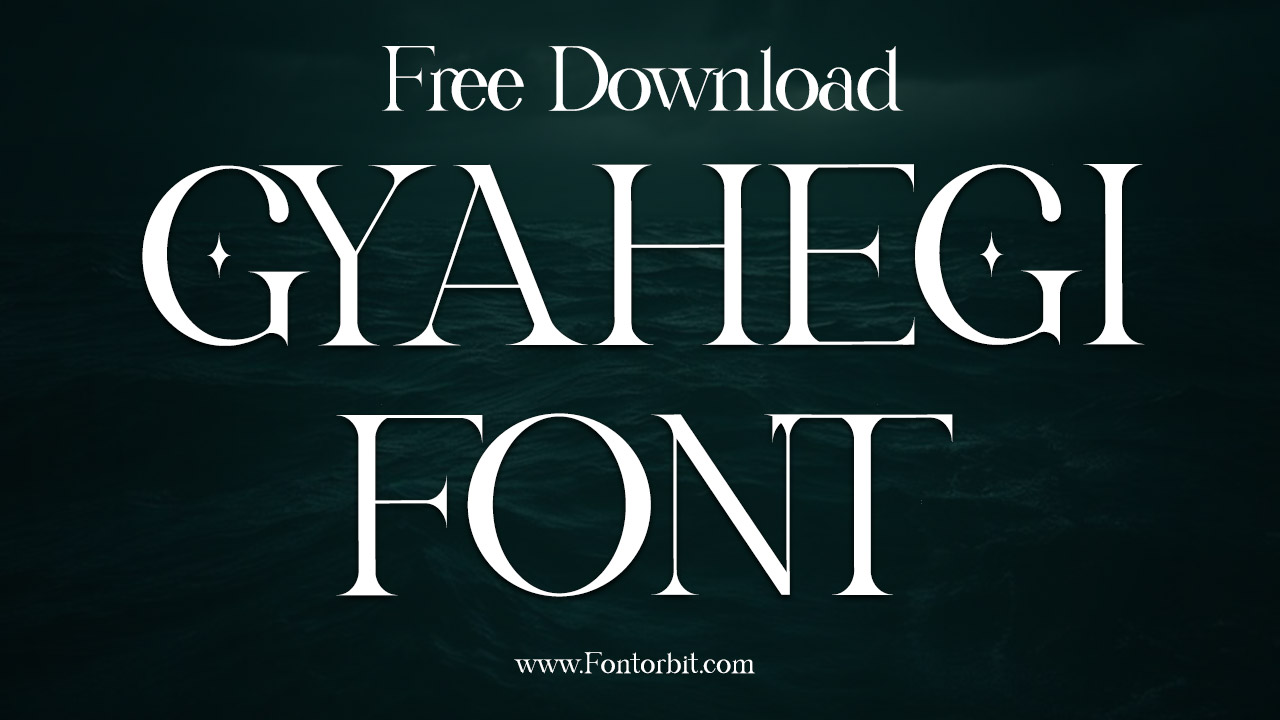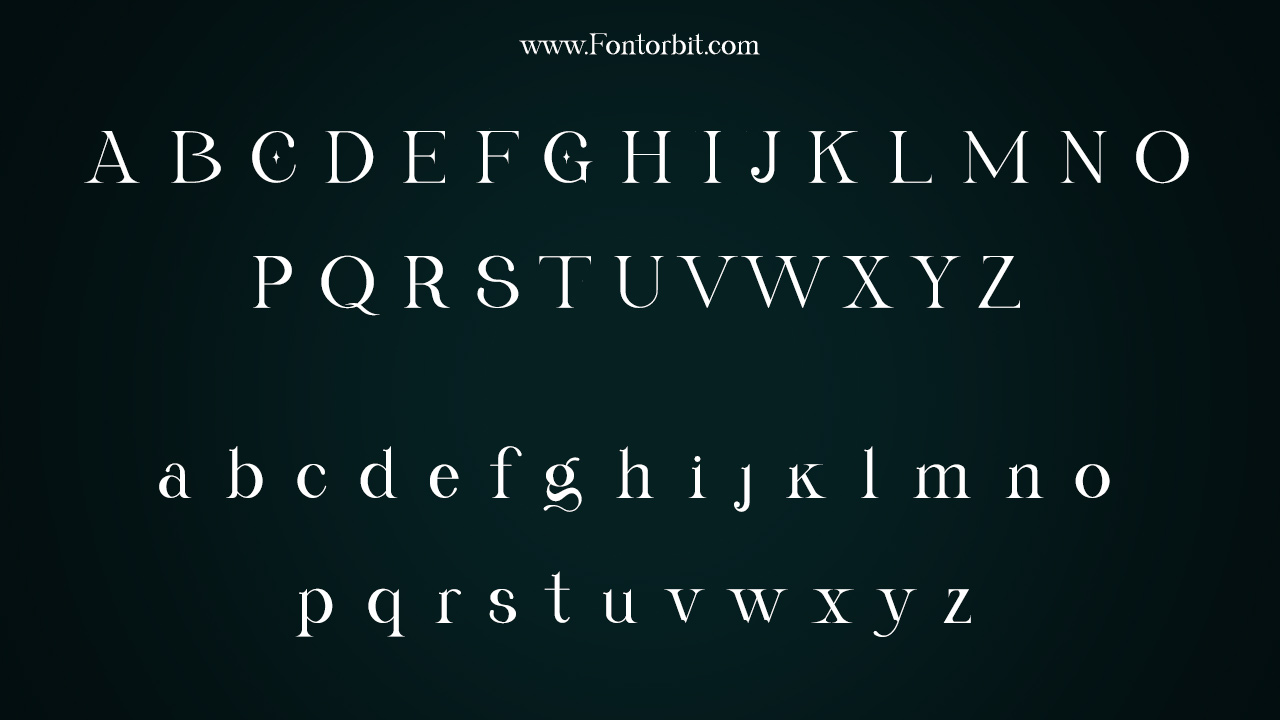
The Gyahegi Font, designed by Putu Dody Permana and published by Hishand Studio, is a modern serif typeface known for its elegant and aesthetic qualities.
This unique font features beautiful ligatures and rounded elements. Gyahegi is ideal for various design projects, including branding, advertisements, and packaging.
- Logo Design
- Brand Identity
- Advertisements
- Product Packaging
- Social Media Posts
- Clothing Brand Designs
- Magazine Headers
- Editorial Content
Gyahegi’s elegant serif design is perfect for adding a touch of sophistication to various projects. Whether you’re working on branding, advertisements, or stylish print materials, Gyahegi provides a versatile and visually appealing choice.
1.What Is The Gyahegi Font?
The Gyahegi Font is a modern serif typeface designed for elegance and aesthetic appeal, featuring ligatures, alternates, and multilingual support.
2.Who Designed The Gyahegi Font?
The Gyahegi Font was designed by Putu Dody Permana and published by Hishand Studio.
3.What Are The Key Features Of The Gyahegi Font?
Key features include ligatures, alternate characters, fine kerning, multilingual support, and a collection of stylish icons.
4.How To Use Gyahegi Font In Branding?
Use it for logo design, brand identity, advertisements, and product packaging to add a touch of sophistication and style.